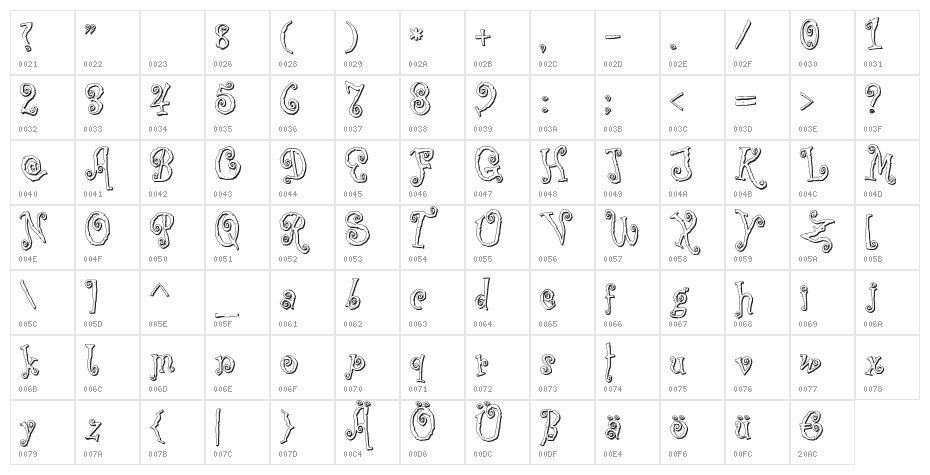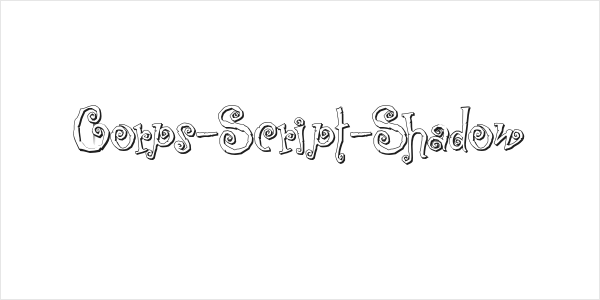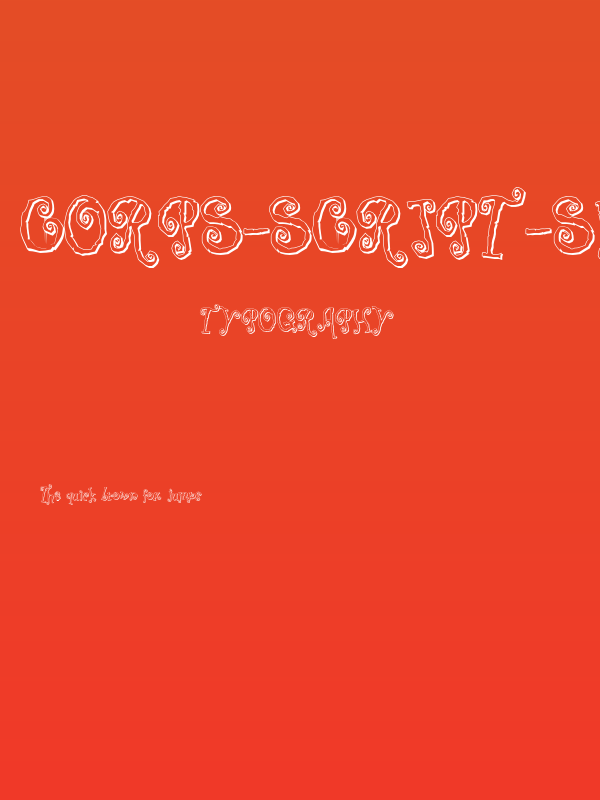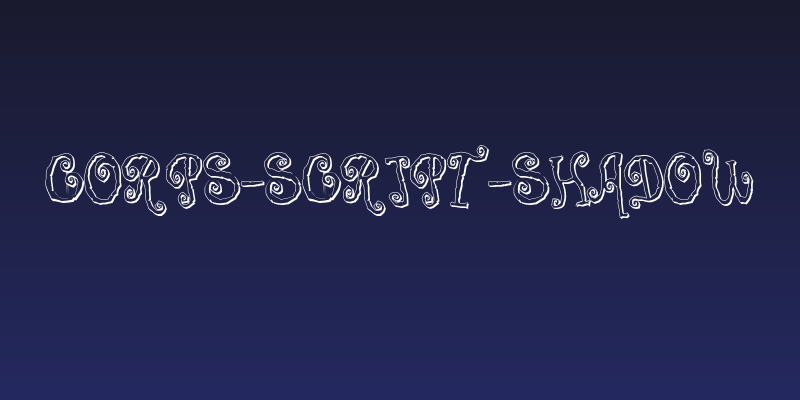
Corps-Script-Shadow Font
Corps-Script-Shadow Description
This font features a whimsical and playful design, characterized by its curly and exaggerated serifs. Each letter is outlined with a shadow effect, giving it a three-dimensional appearance. The strokes are uneven, adding to its quirky and informal style. The font maintains a consistent height across uppercase and lowercase letters, with a slightly wider stance that enhances readability. The numbers and special characters follow the same playful theme, making it suitable for creative and artistic projects. Its unique style makes it stand out, ideal for capturing attention in headlines or decorative text.
| Use Case | Headlines, Decorative text, Artistic projects |
| Proposed Projects | Ideal for children's book covers, playful invitations, creative posters, and artistic branding. |